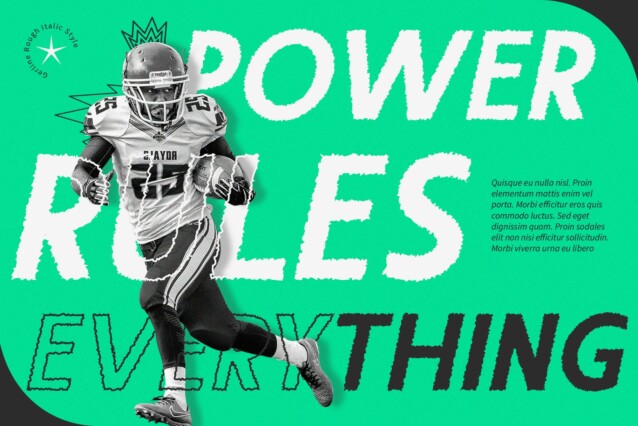
Gerline Rough Font
Gerline Rough Font is a modern sans-serif font with a rough vibe, perfect for adding character and charm to your designs. Its unique style is ideal for headlines, posters, and other display purposes where you want to make a bold statement.
Condensed Form for Space Efficiency
With its condensed form, Gerline Rough maximizes space efficiency without compromising readability. This makes it perfect for situations where space is limited, such as banners and headers.